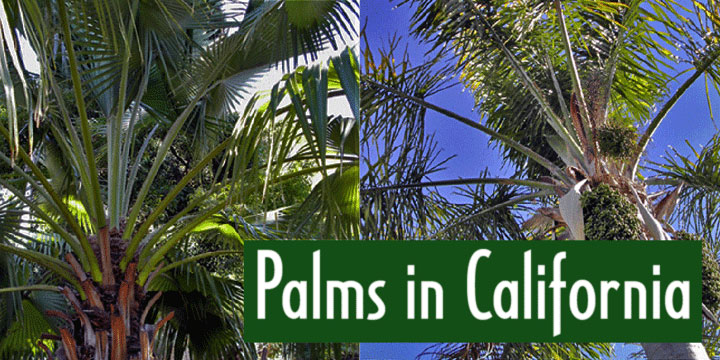
Carlos Medium
Carlos (available in three weights) was inspired by a Spanish typeface designed by German designer, Carlos Winkow, called 'Elektra' (c. 1940), not to be confused with the font 'Electra' (1935) by American type designer, William Addison Dwiggins. Carlos contains upper and lower-case and is extended to support all European languages that use the Latin alphabet as well as those that use the Cyrillic alphabet.
Carlos includes these OpenType features: arbitrary diagonal fractions, alternate letterforms, and features that facilitate typing in Esperanto, Yorùbá, and modern Greek. Available in three weights: Light, Medium, and Bold.